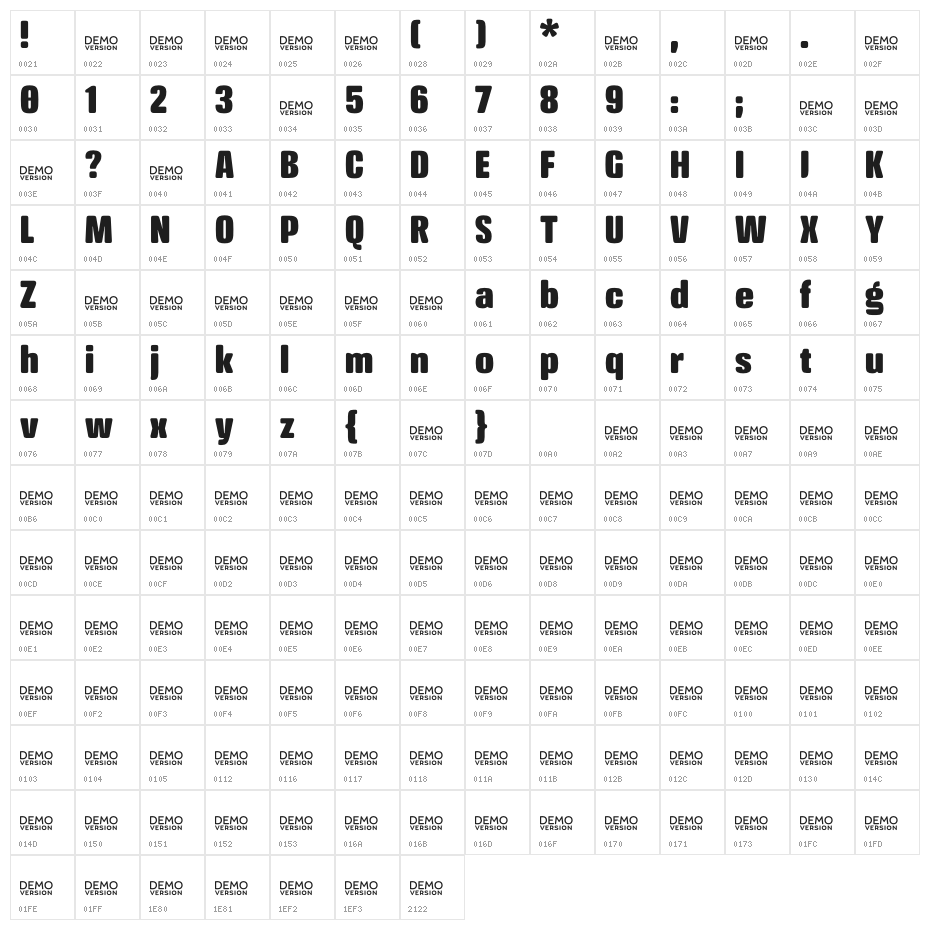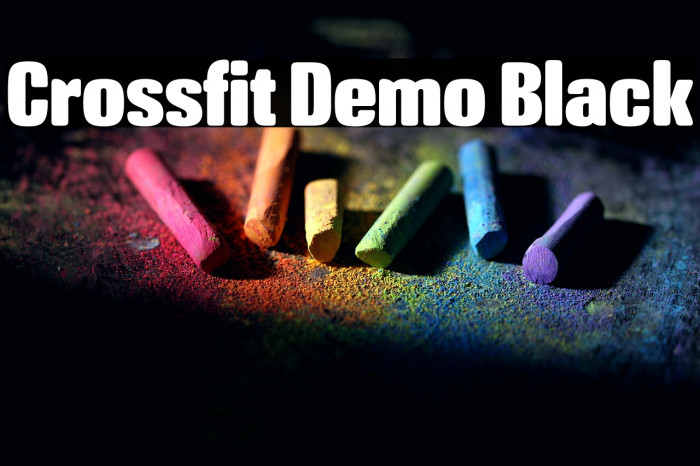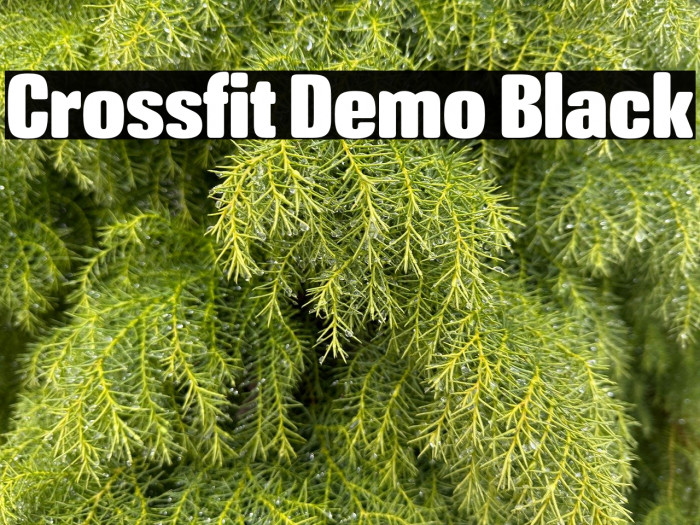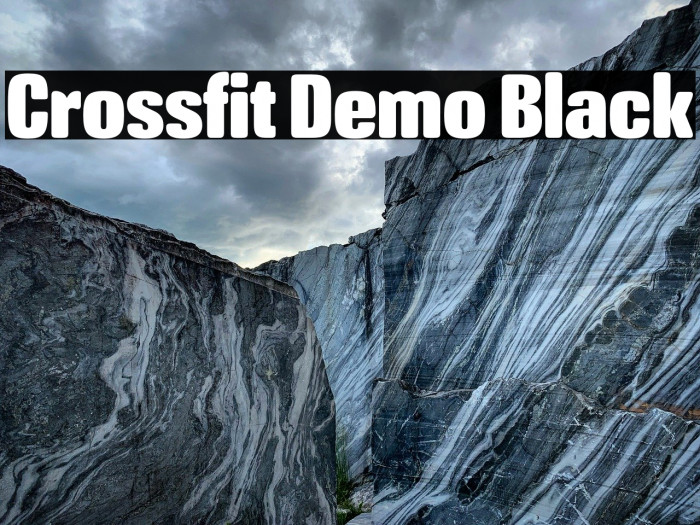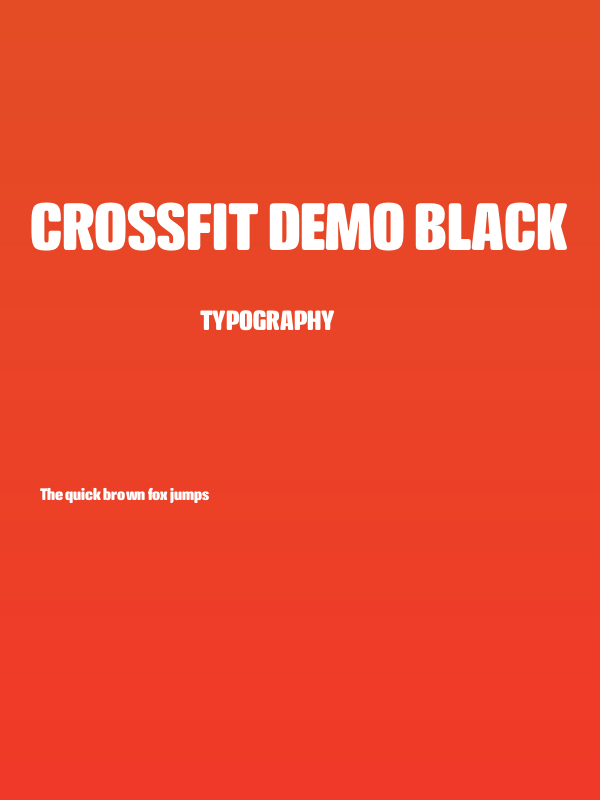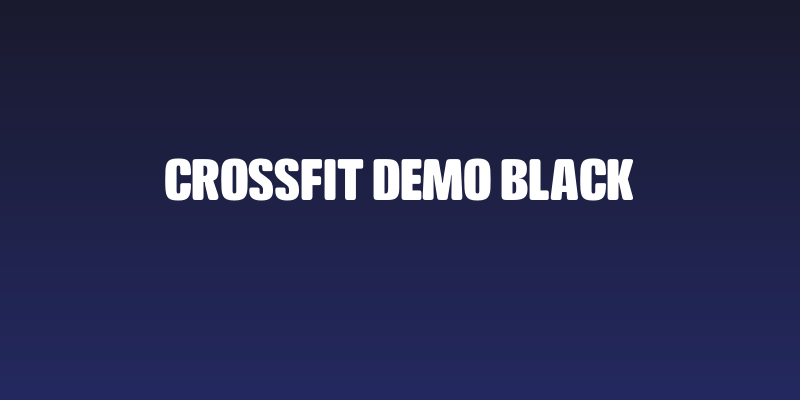
Crossfit Demo Black Font
Crossfit Demo Black Description
This font features a bold and robust design, characterized by thick, uniform strokes that convey strength and stability. The uppercase and lowercase letters maintain a consistent width, giving the typeface a monolithic appearance. The rounded edges soften the overall look, adding a touch of approachability to its otherwise strong presence. The numerals are equally bold, ensuring readability and impact. Special characters are included, maintaining the same weight and style as the alphanumeric characters. This font is well-suited for projects that require a commanding and confident visual statement.
Proposed ProjectsIdeal for branding, headlines, posters, and any design that requires a strong, impactful typeface.